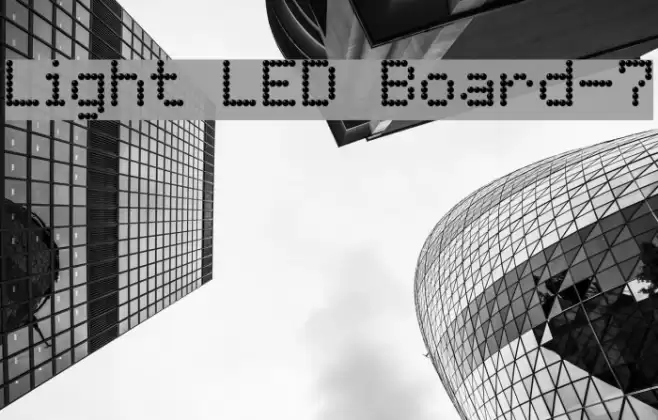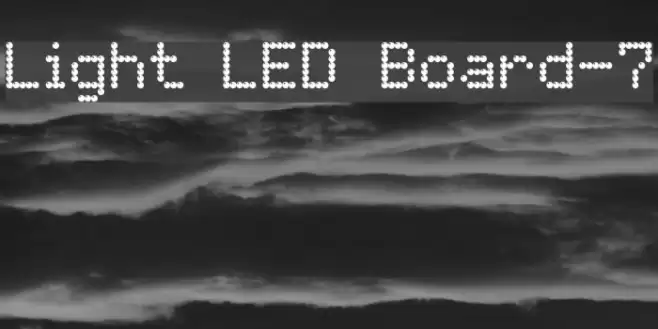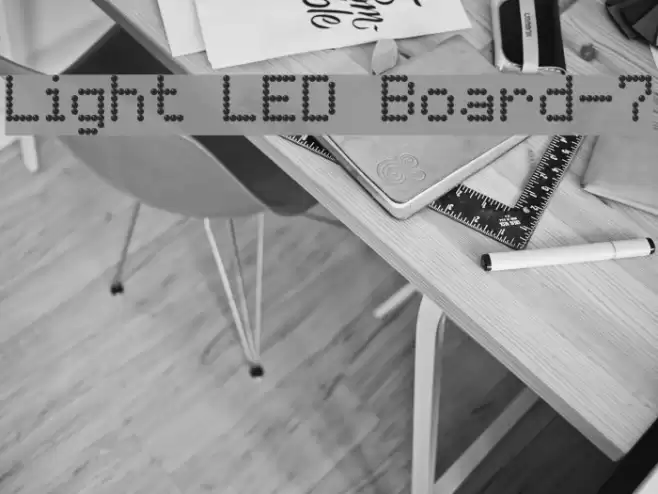
Light LED Board-7 Font
Light LED Board-7 Description
This font features a unique design that mimics the appearance of an LED display. Each character is composed of a grid of dots, creating a digital and modern aesthetic. The characters are evenly spaced and maintain a consistent size, giving a uniform look across all letters, numbers, and symbols. The style is reminiscent of retro digital displays, often seen in old electronic devices. Its geometric structure makes it highly legible, even at smaller sizes, and it conveys a sense of technology and innovation.
A dot-matrix style font that resembles an LED display, offering a digital and modern look from Uncategorized fonts.
- Proposed Projects: Ideal for digital-themed projects, tech-related branding, retro designs, and electronic display simulations.
- Use Case: Headlines, Logos, Digital Displays